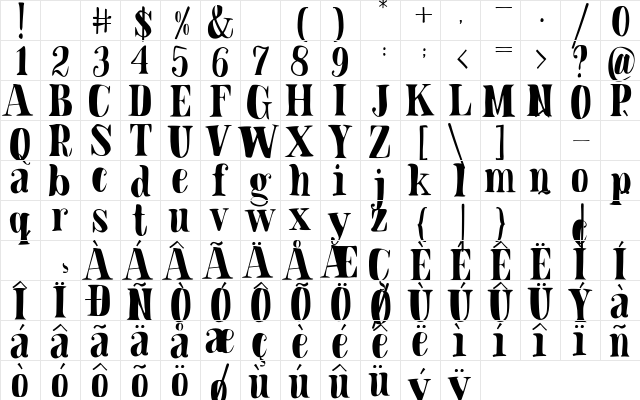
Blade Font Regular
| Foundry | Juni Fadil Putra |
| Designer | Juni Fadil Putra |
Design Context for Blade Font Typeface
Blade Font is a composed and adaptable typeface that performs quietly and consistently across a wide range of design contexts.